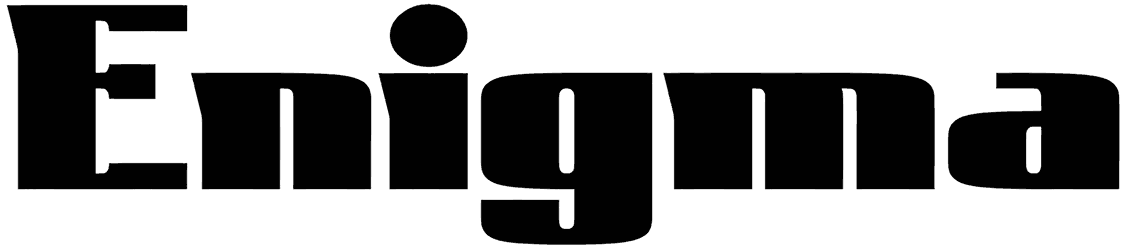
Enigma Font
The headlines and titles you create with the fancy and bold font, Enigma, will turn heads. The combination of a bold look and sharp corners gives the font a contemporary and powerful feel.